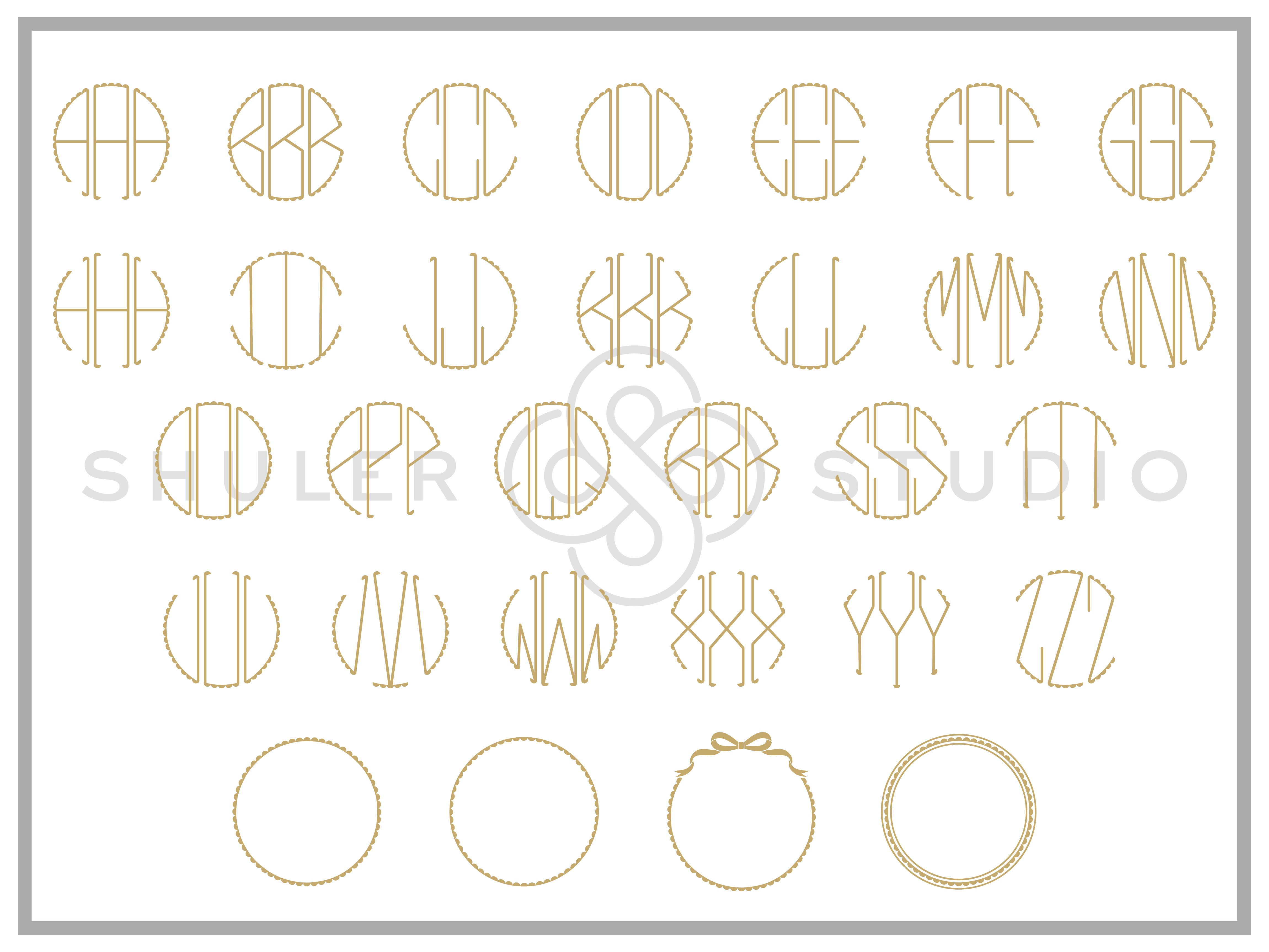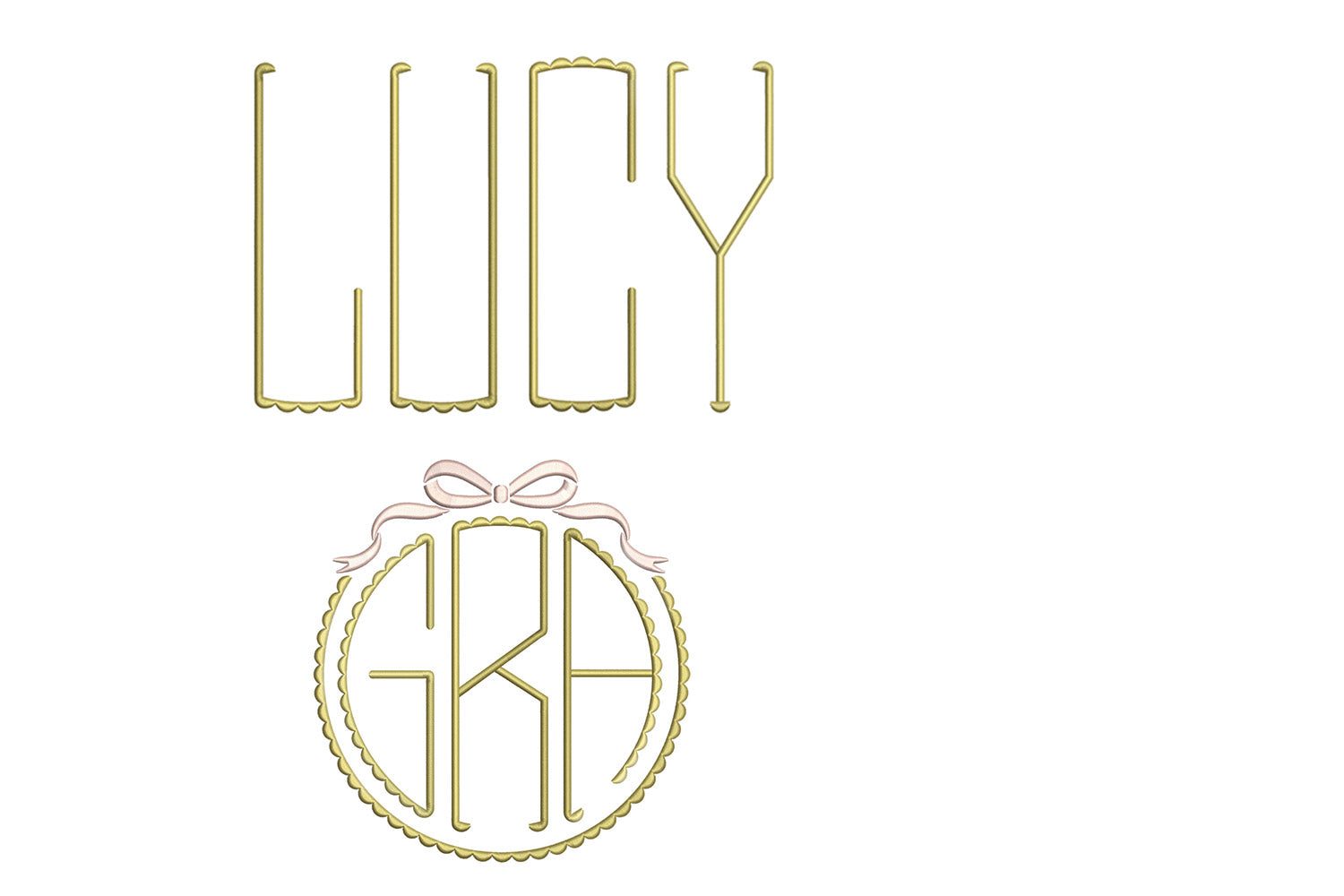
Monogram Scallop Font for Embroidery
Monogram Scallop is a beautiful and delicate font featuring ornate scallop details. In 1-letter, 2-letter, 3-letter, or as text, this graceful font is perfect for that special item for baby, children, or an elegant piece.
4 additional frames perfectly create a surround to complement the font.
Perfect for embroidery, the careful attention in the digitization of each design makes personalization unique and beautiful!